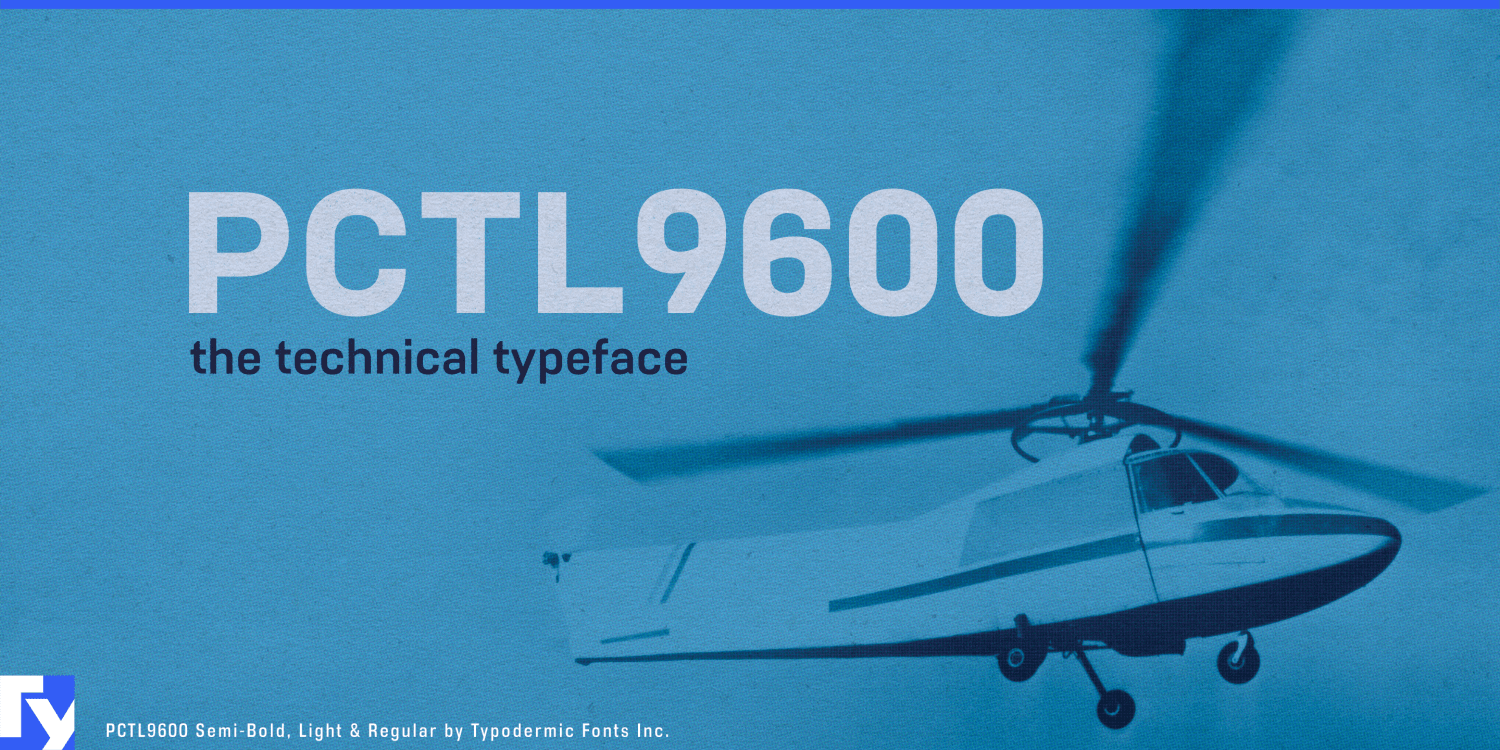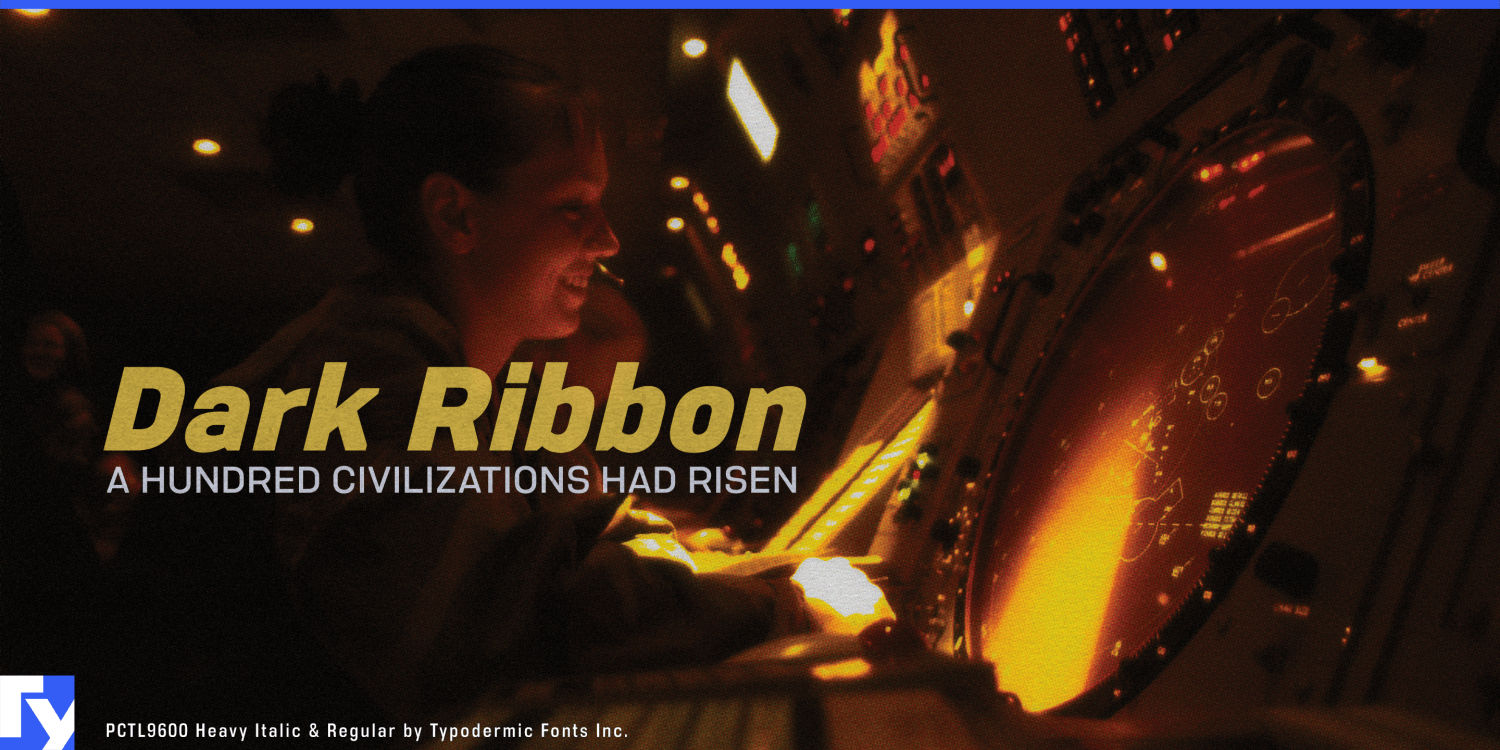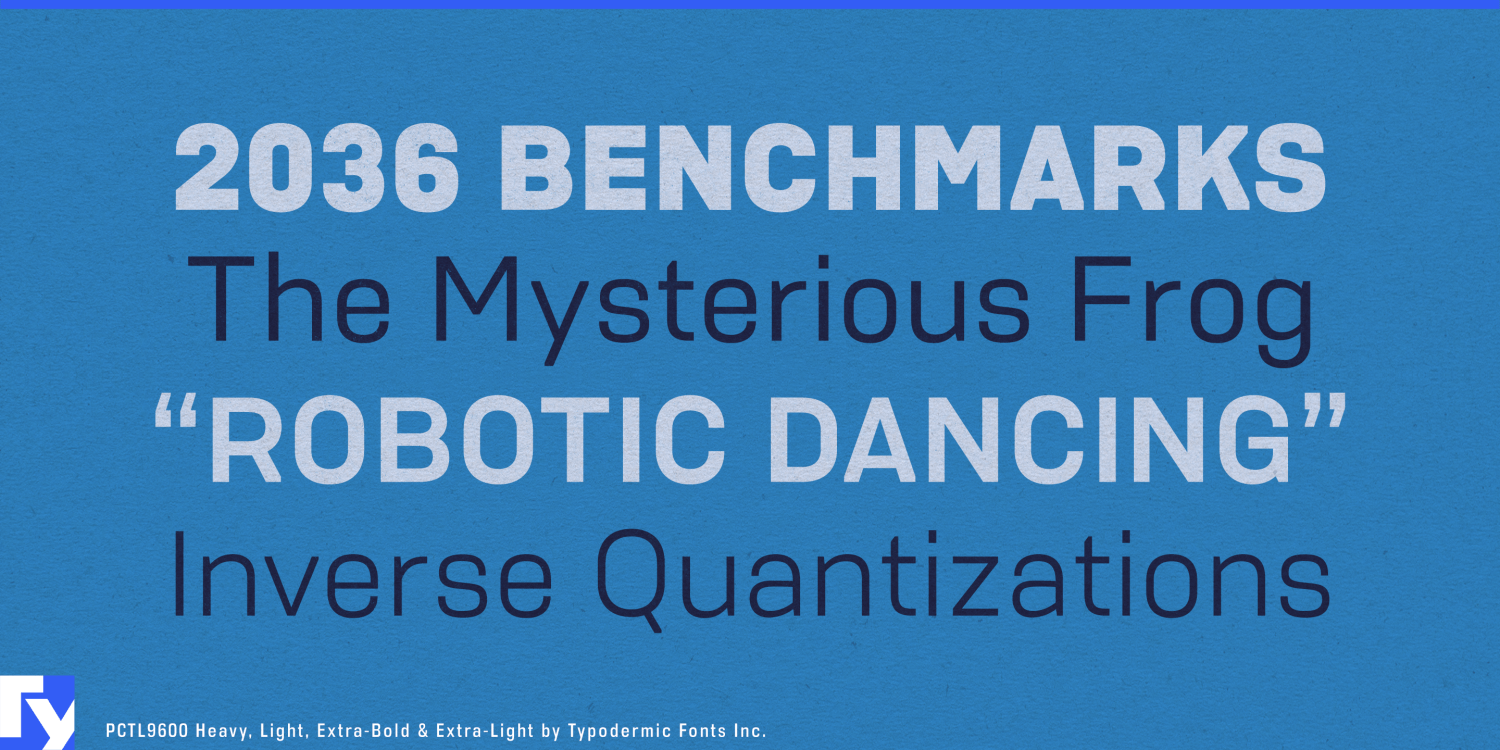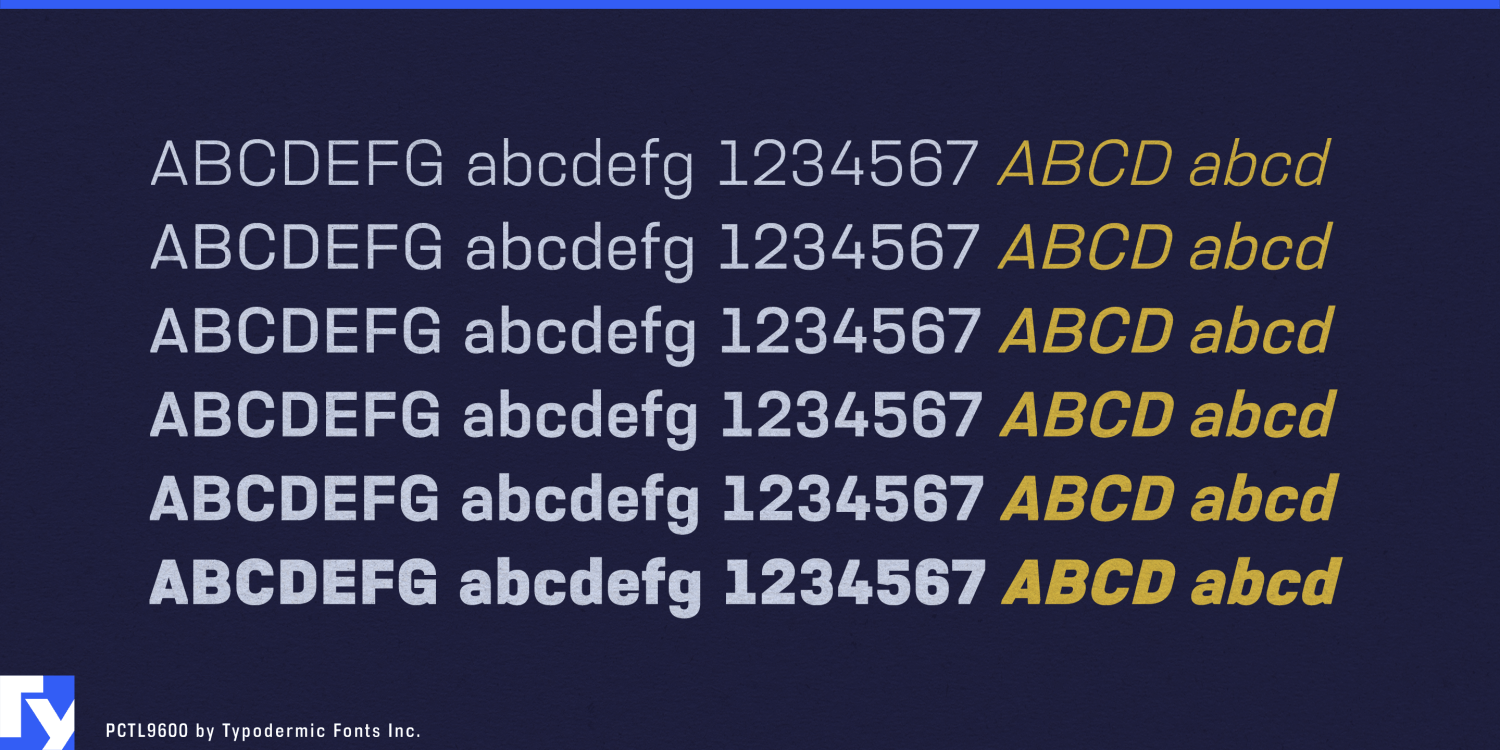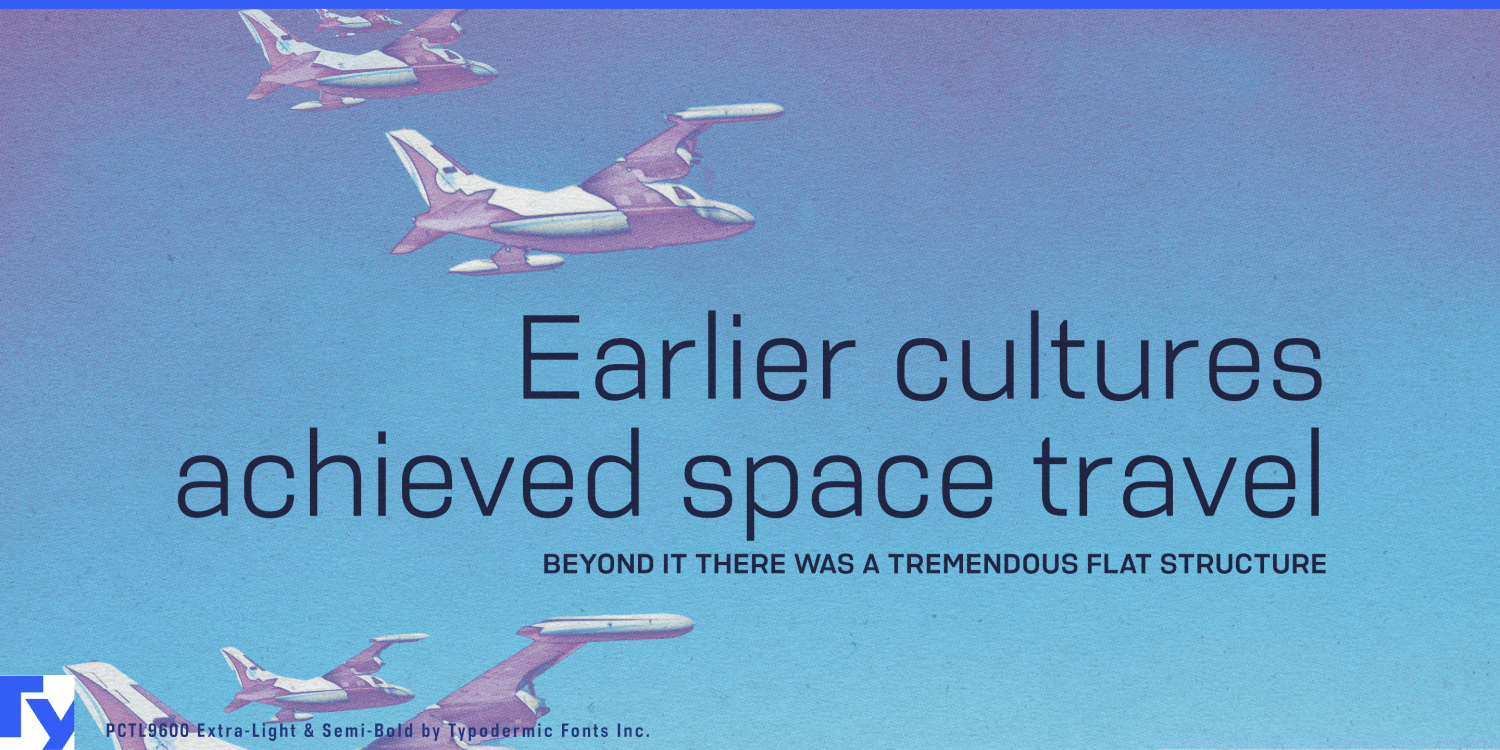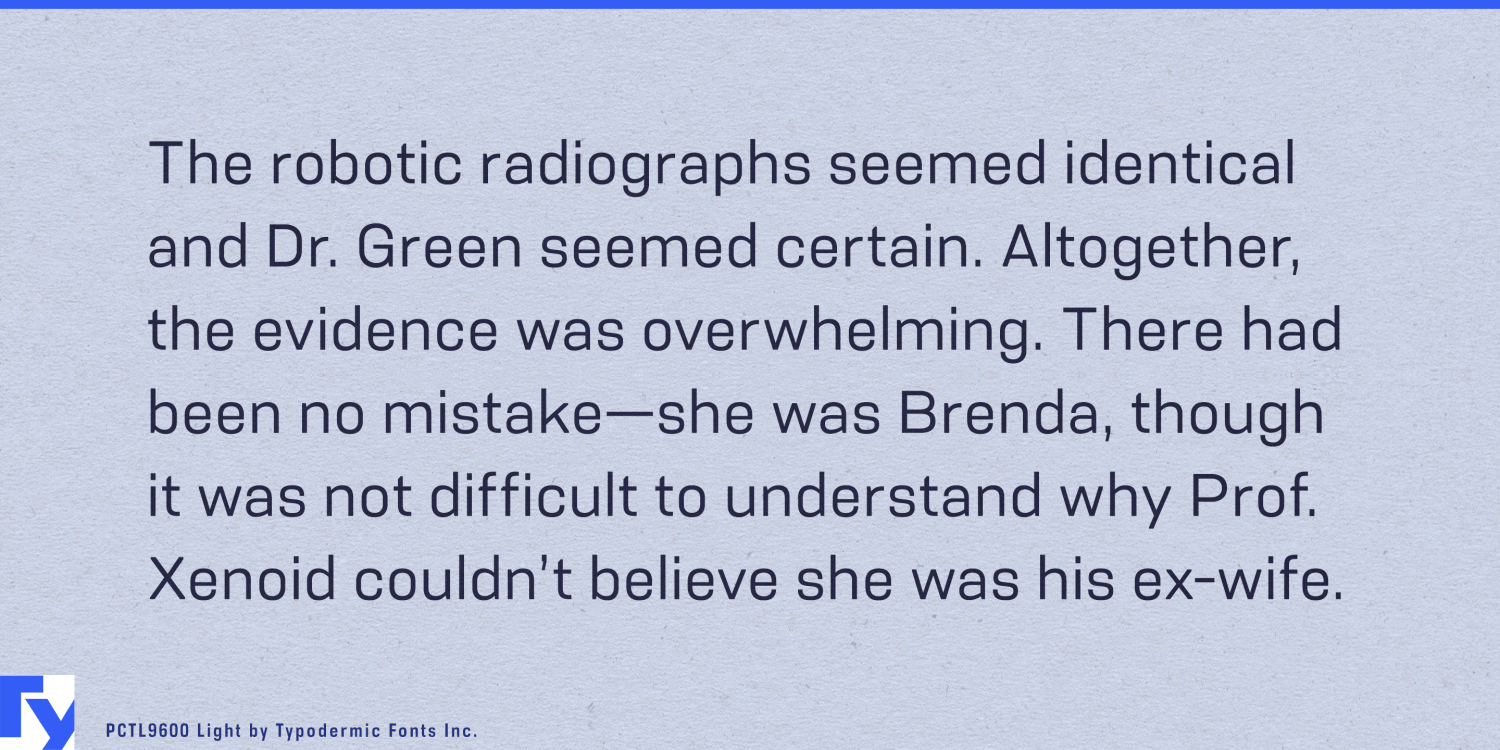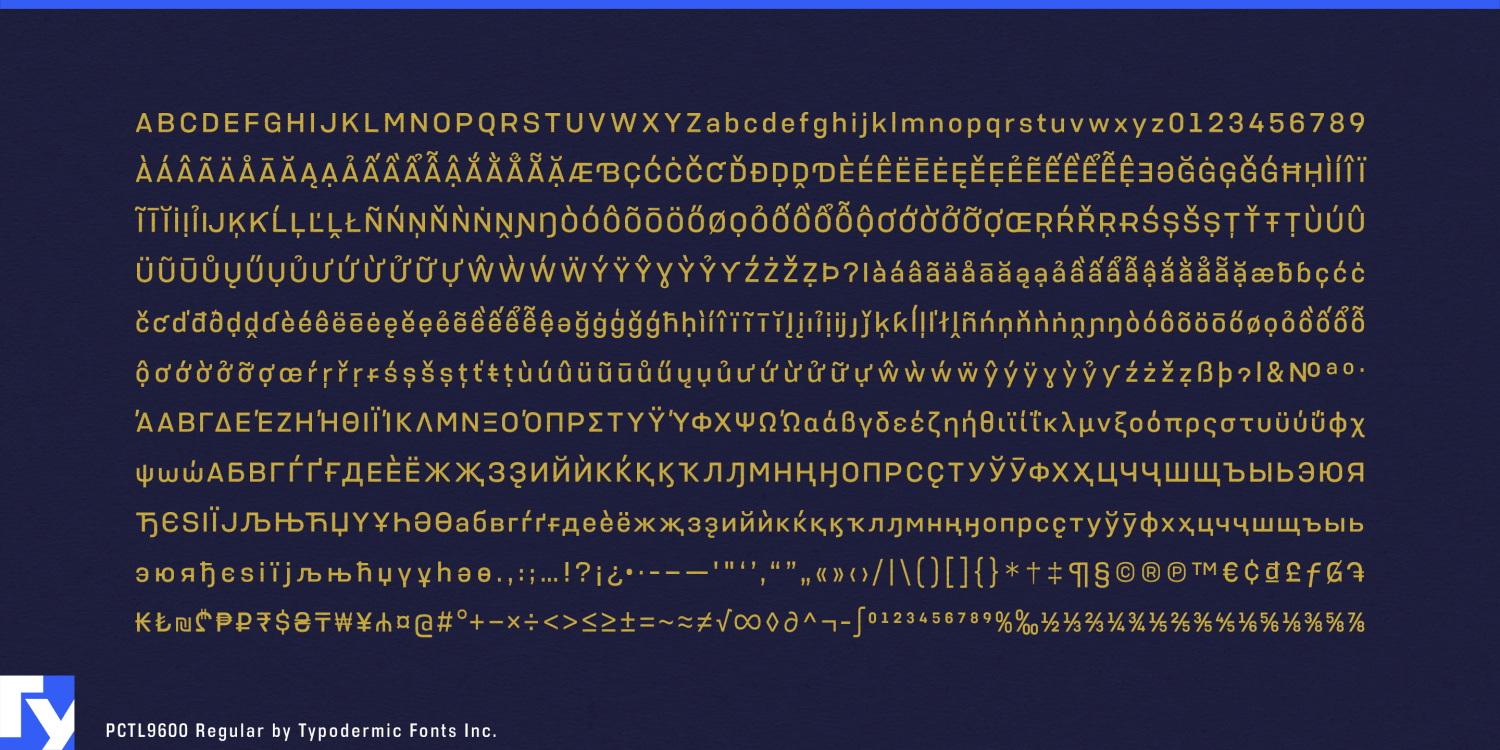
PCTL9600
PCTL9600 began as a custom typeface for a science-fiction video game, with a brief to carry DIN’s disciplined utility into a more futuristic, engineered setting. Its squared forms and abrupt transitions move beyond DIN’s geometric character toward contemporary industrial design, recalling instrument housings, molded components, control surfaces and replaceable cartridges. The result is orderly enough for complex information, yet distinctive enough to establish a proprietary technical environment.
PCTL9600 shares its underlying construction with PCTL4800, but removes the indexed corner cuts of its companion family. The uninterrupted forms give it a quieter, more broadly applicable character without softening its industrial edge. It feels designed for a specific technical system, though less conspicuously marked by one.
This balance makes PCTL9600 particularly effective for pharmaceutical and biotechnology products. Specialty-drug cartons, diagnostic-test kits, laboratory reagents and clinical-trial materials can use it for product names, formulation codes, dosage strengths and information headings. It communicates scientific precision without becoming another anonymous healthcare sans, while its cleaner construction accommodates products that require a restrained visual identity.
The same qualities suit laboratory instruments, medical devices, synthesizer control panels, robotics catalogs, 3D-printer packaging and field-service manuals. Model names, equipment categories, specifications, labels and procedural text can share a consistent industrial language without making every component look like a science-fiction prop.
In speculative settings, that restraint becomes an advantage. Spacecraft maintenance labels, mission dossiers, cockpit displays, research-station signs and operating instructions often need to appear routine within their fictional world. PCTL9600 suggests contemporary engineering without calling attention to a decorative futuristic device, making it especially useful for the background typography that turns an imagined technology into established infrastructure.
PCTL4800 offers the same industrial foundation with indexed corners inspired by memory cards and technical components. PCTL has no inherent meaning, while 9600 was loosely inspired by the model-number language of old Atari consoles. It sounds less like a typeface than a piece of equipment already several revisions into production.